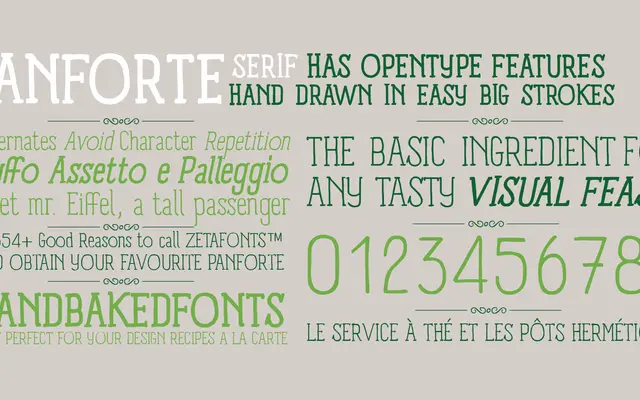
Panforte Serif
Zetafonts · Debora Manetti · 2012
A condensed serif companion to Panforte Pro, designed by Debora Manetti with hand-drawn character and broad multilingual coverage across Latin, Greek and Cyrillic scripts.
Released in 2012, this serifed counterpart to Panforte Pro retains the same compact, condensed structure while adding serifs intended to improve readability in extended text settings. Six styles span three weights with matching italics, and OpenType features include small caps, old-style numerals and ligatures for considered typesetting. Coverage extends to 192 languages across Latin, Greek and Cyrillic character sets.
A serifed companion to the sans-serif Panforte Pro, sharing the same condensed structure and hand-drawn character; its compact proportions and bold strokes place it in the condensed serif category.